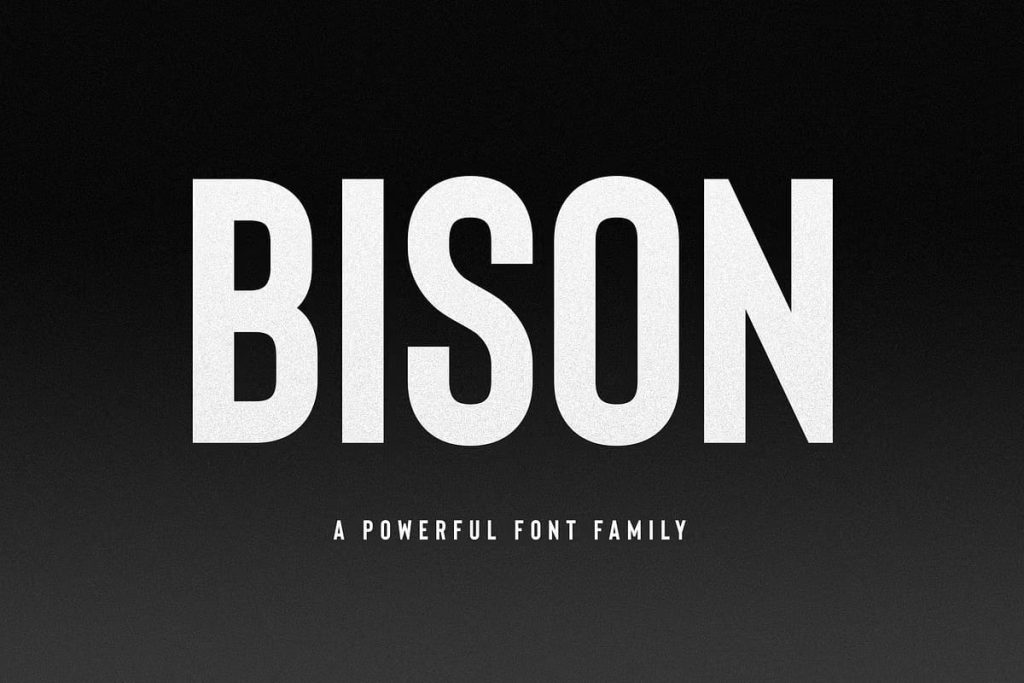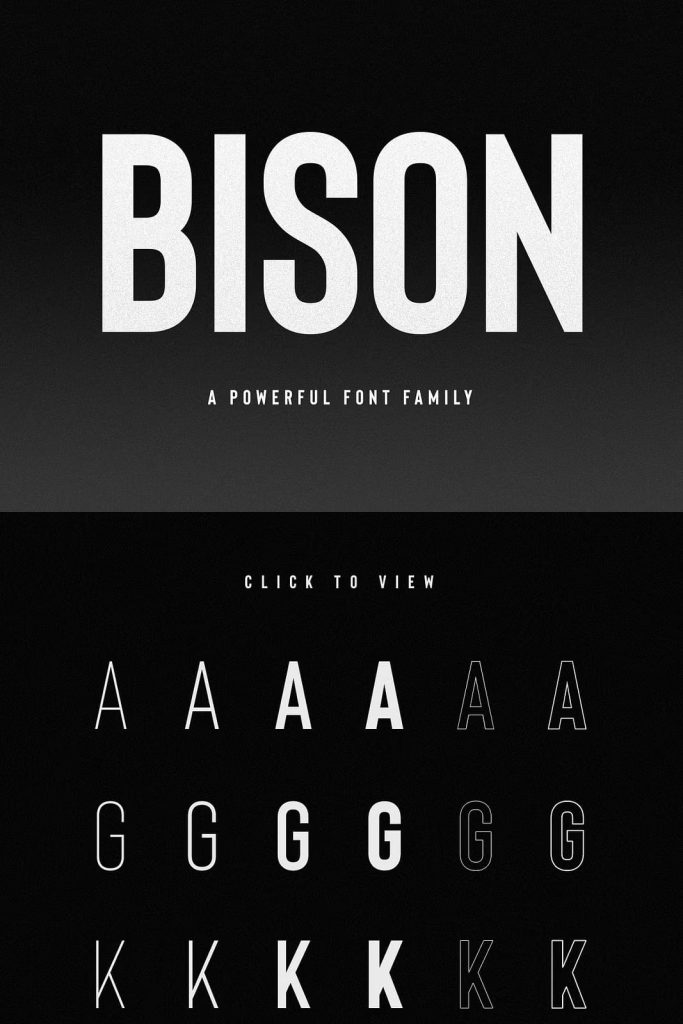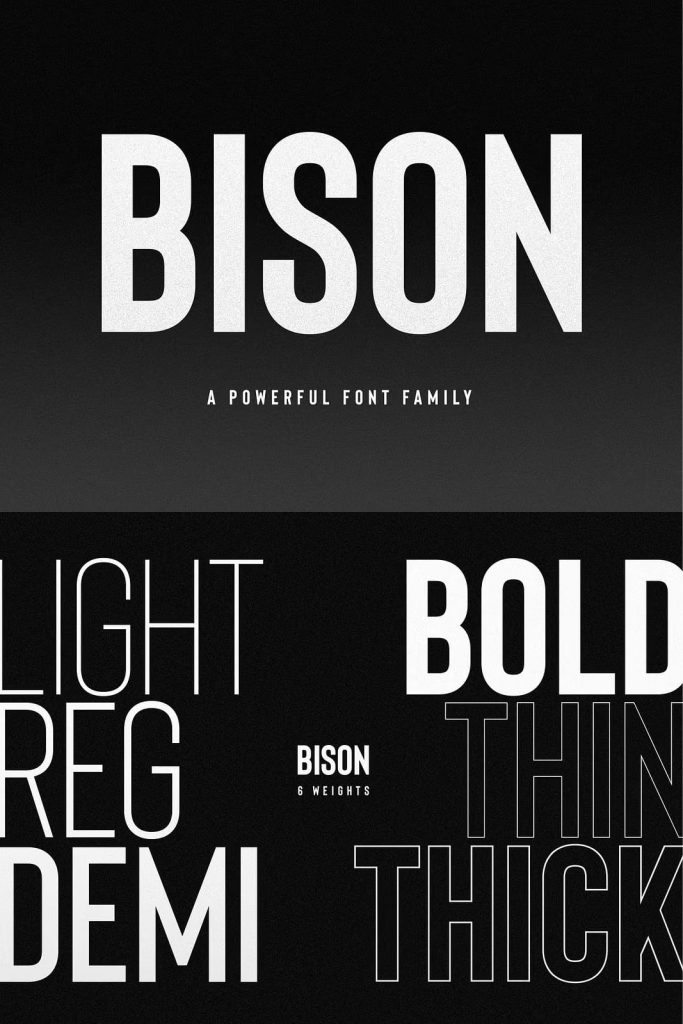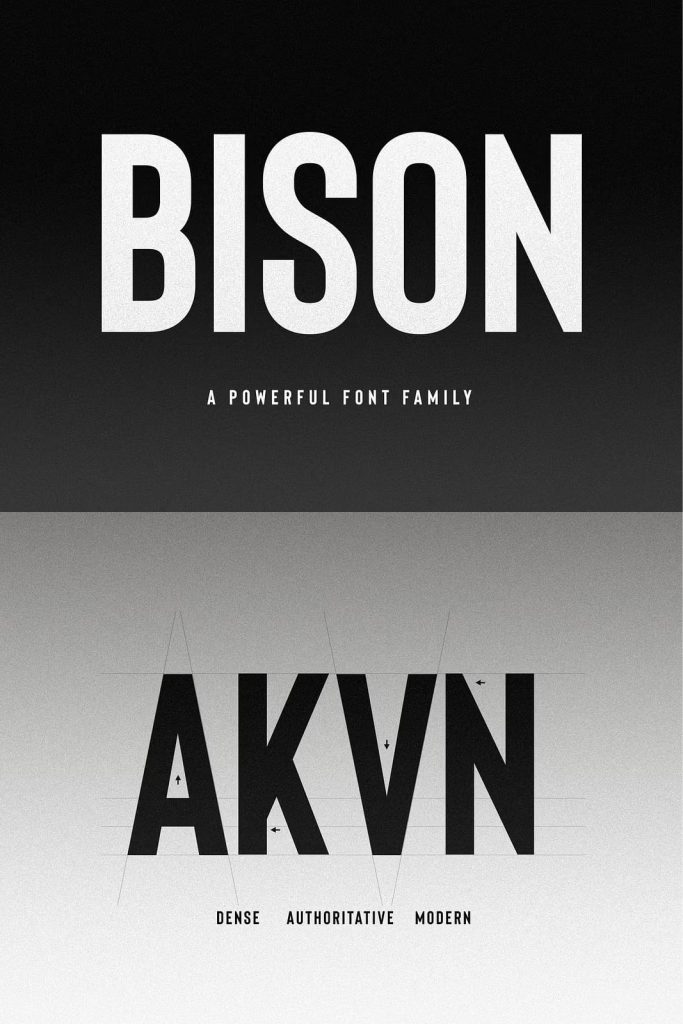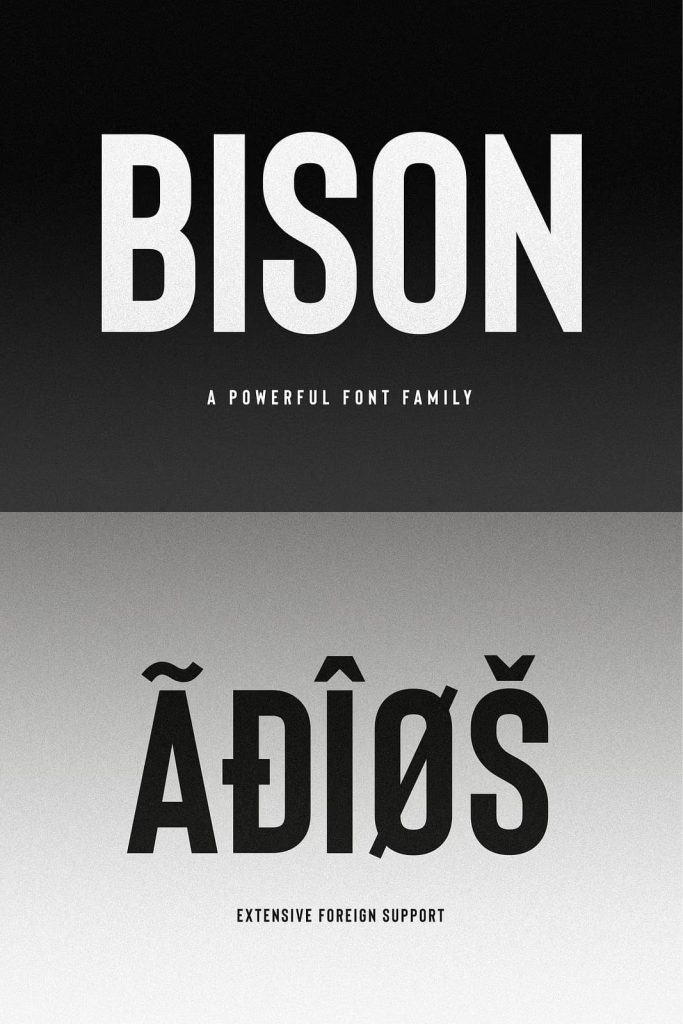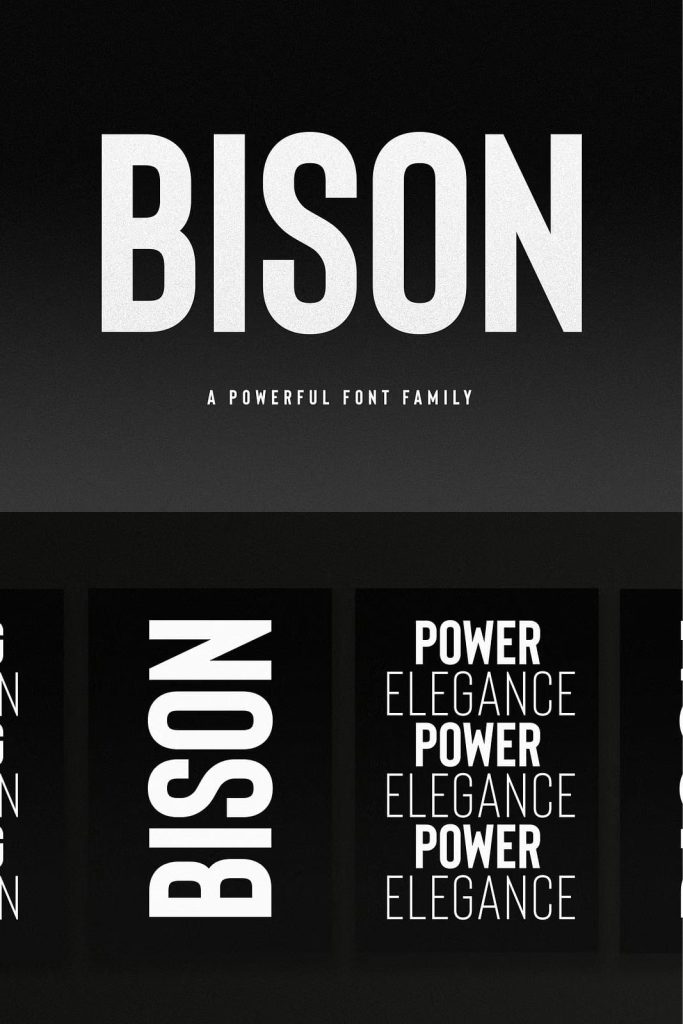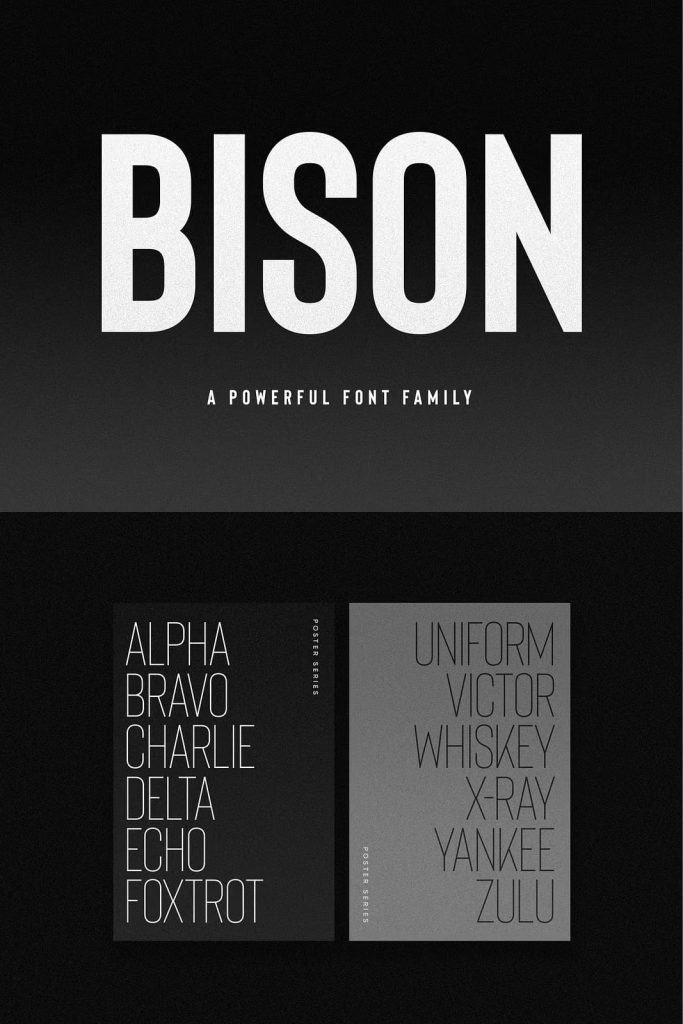
Bison is a strong fontfamily and sophisticated sans serif. Inspired by the animal, it’s sturdy uncompromising style is felt through the controlled letterforms and modern touches. A balance of hard lines and smooth curves. Each font in the family can stand on its own, dynamic and authoritative in their own right.
Bison includes ten all-caps fonts: Four weights, two outlines, six italics.
- Bison Bold – Bold and commanding
- Bison Demibold – The persuasive middleweight
- Bison Regular – A sturdy midground between light and bolds
- Bison Light – Quiet but confident
- Bison Outline (Thick and Thin) – Edgy and engaging